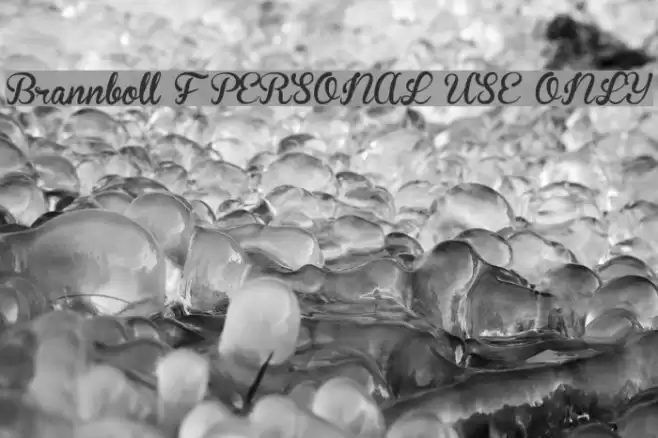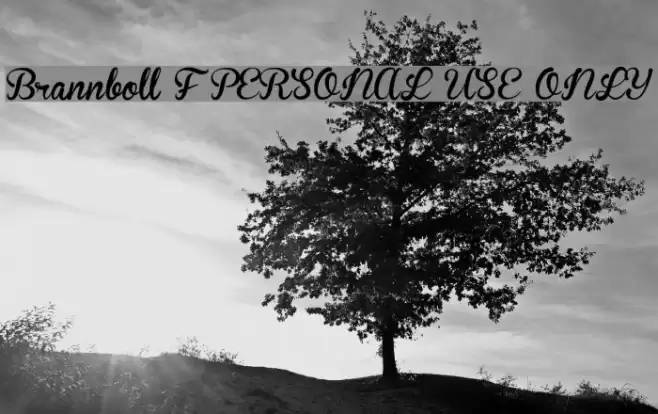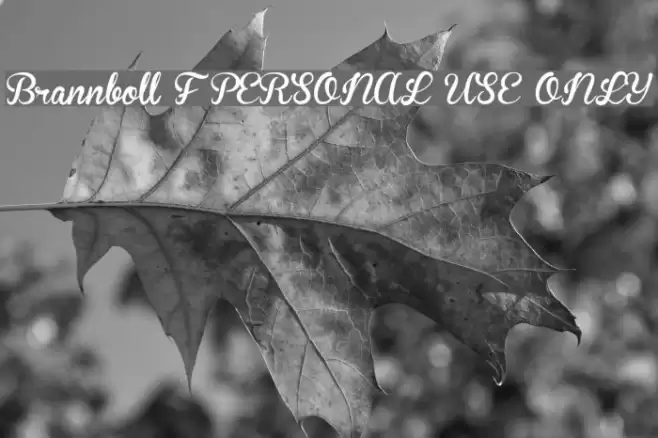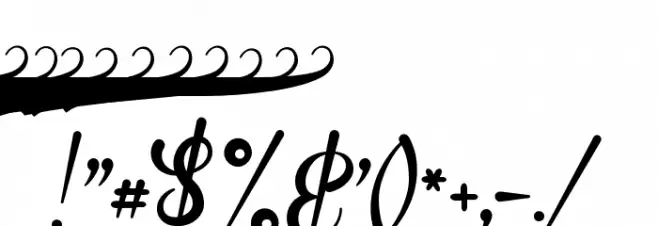
Brannboll F PERSONAL USE ONLY Font
Brannboll F PERSONAL USE ONLY Description
This font exudes a playful and dynamic script style, characterized by its flowing, cursive letterforms. The uppercase letters are elegantly connected, creating a sense of movement and fluidity. The lowercase letters maintain this cursive style, with smooth transitions and rounded edges. The font includes a variety of special characters and punctuation, each designed to complement the overall aesthetic. Its bold strokes and artistic flair make it ideal for creative projects that require a touch of elegance and personality.
A playful and dynamic script font with flowing, cursive letterforms from Uncategorized fonts.
- Proposed Projects: Ideal for wedding invitations, greeting cards, branding, and logo design.
- Use Case: Logos, Headlines, Invitations